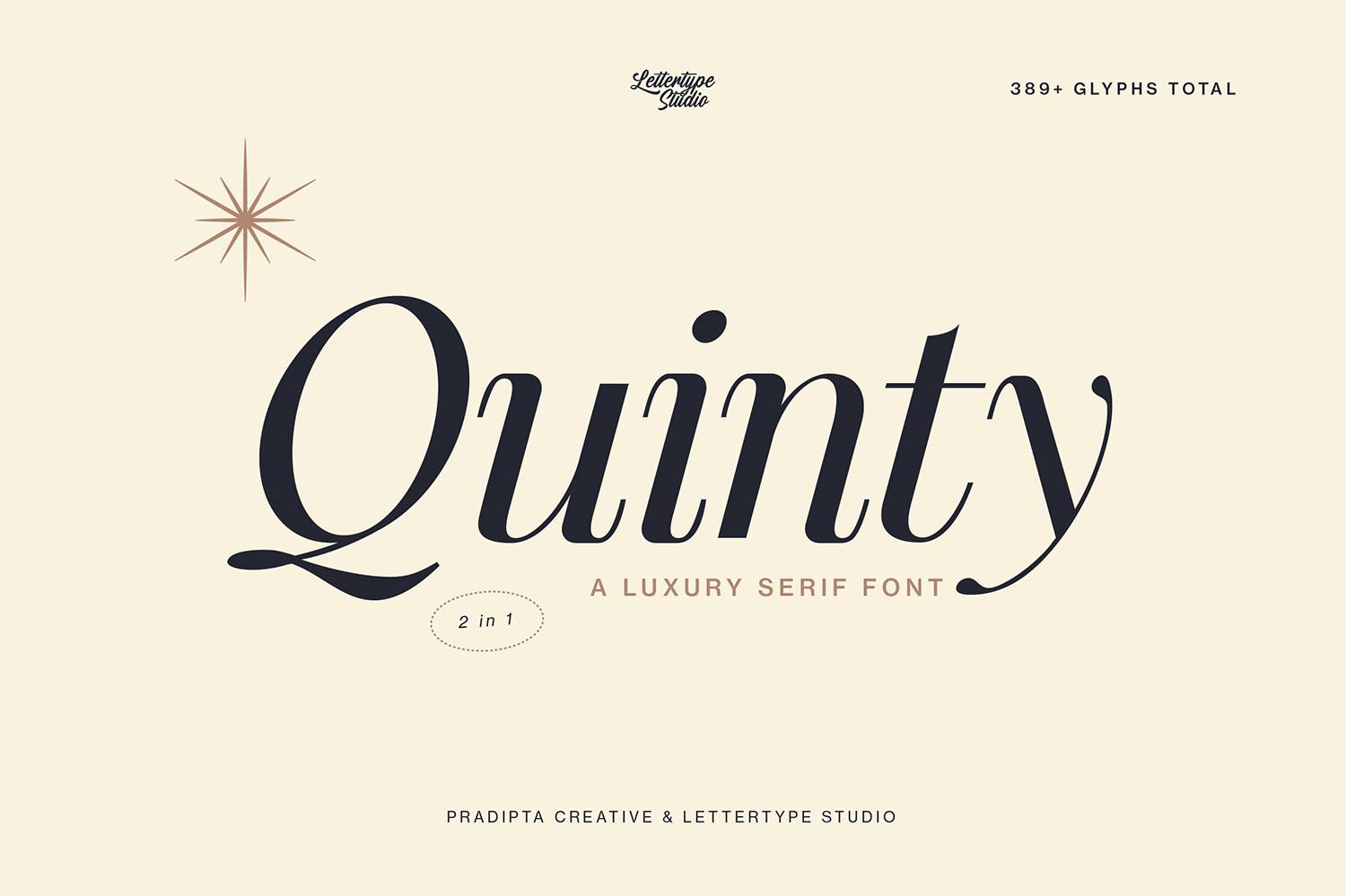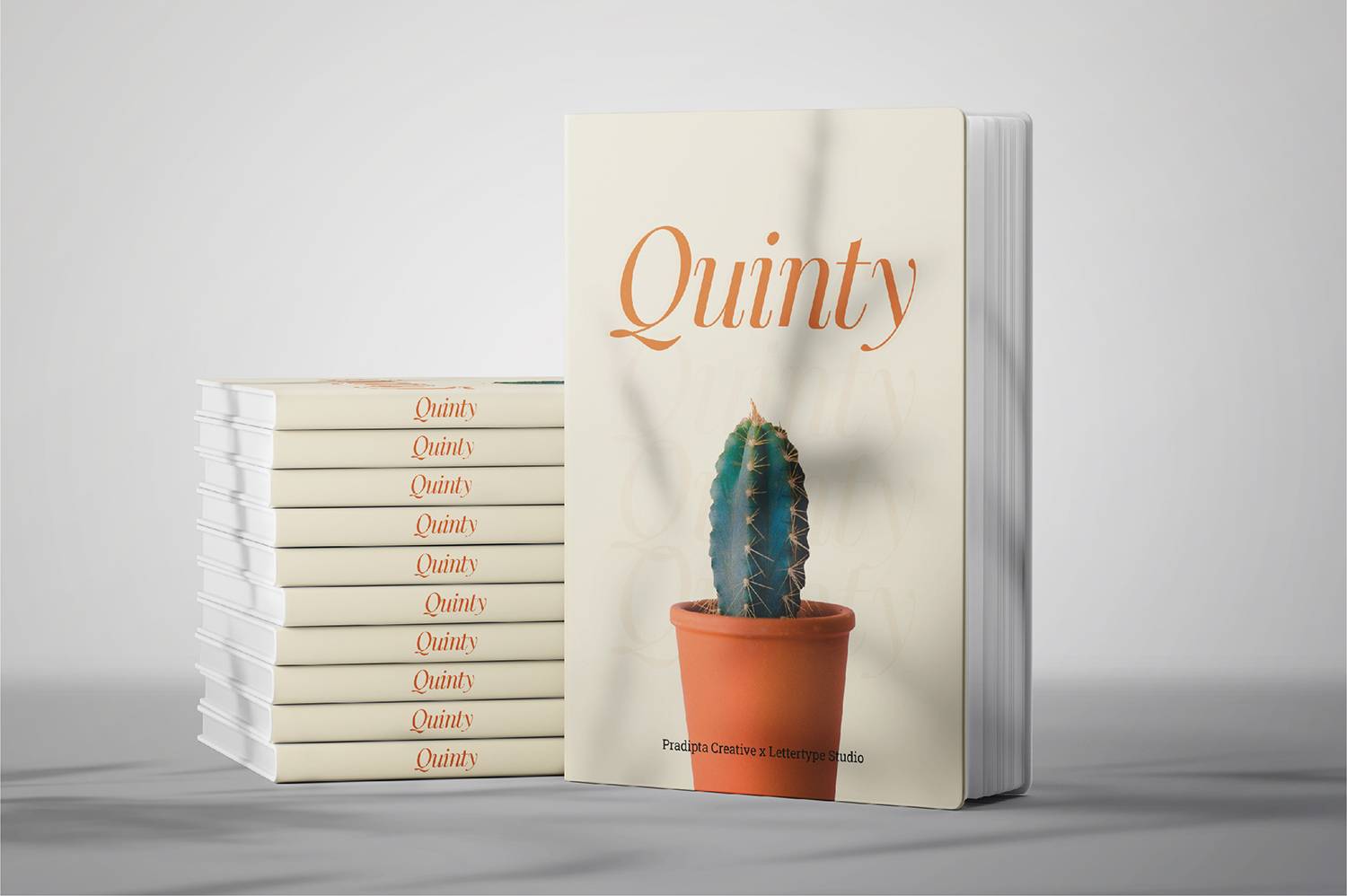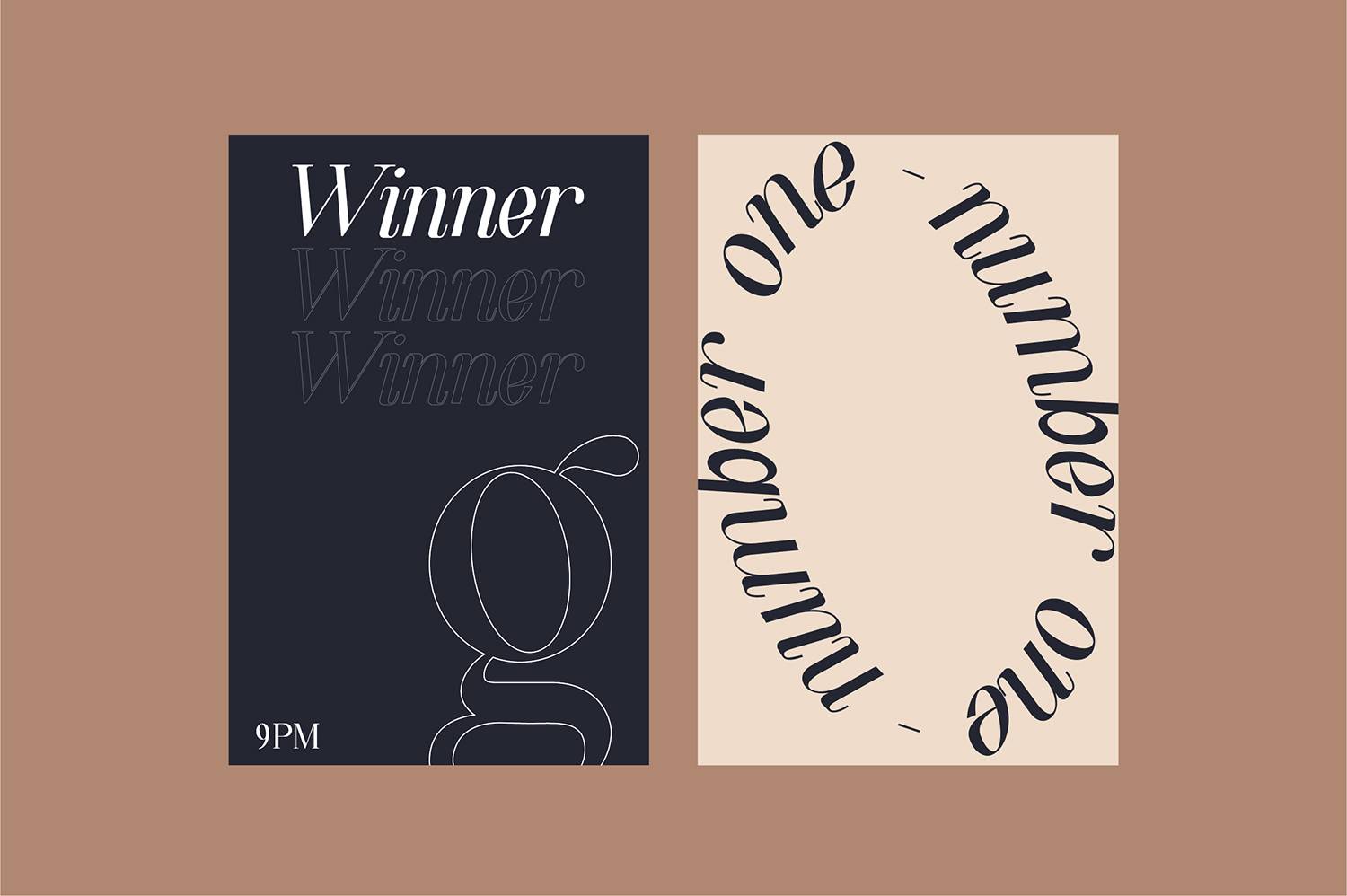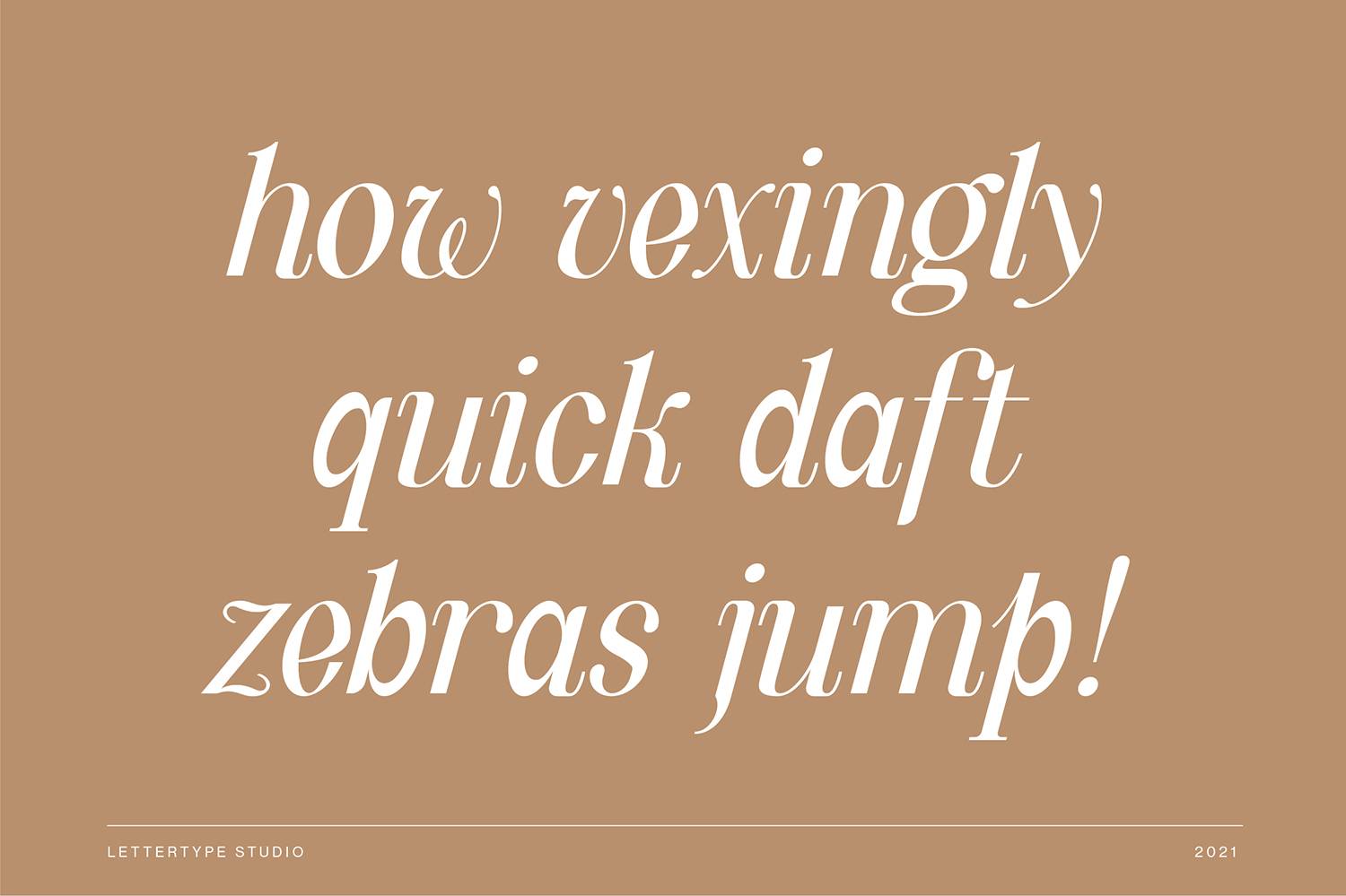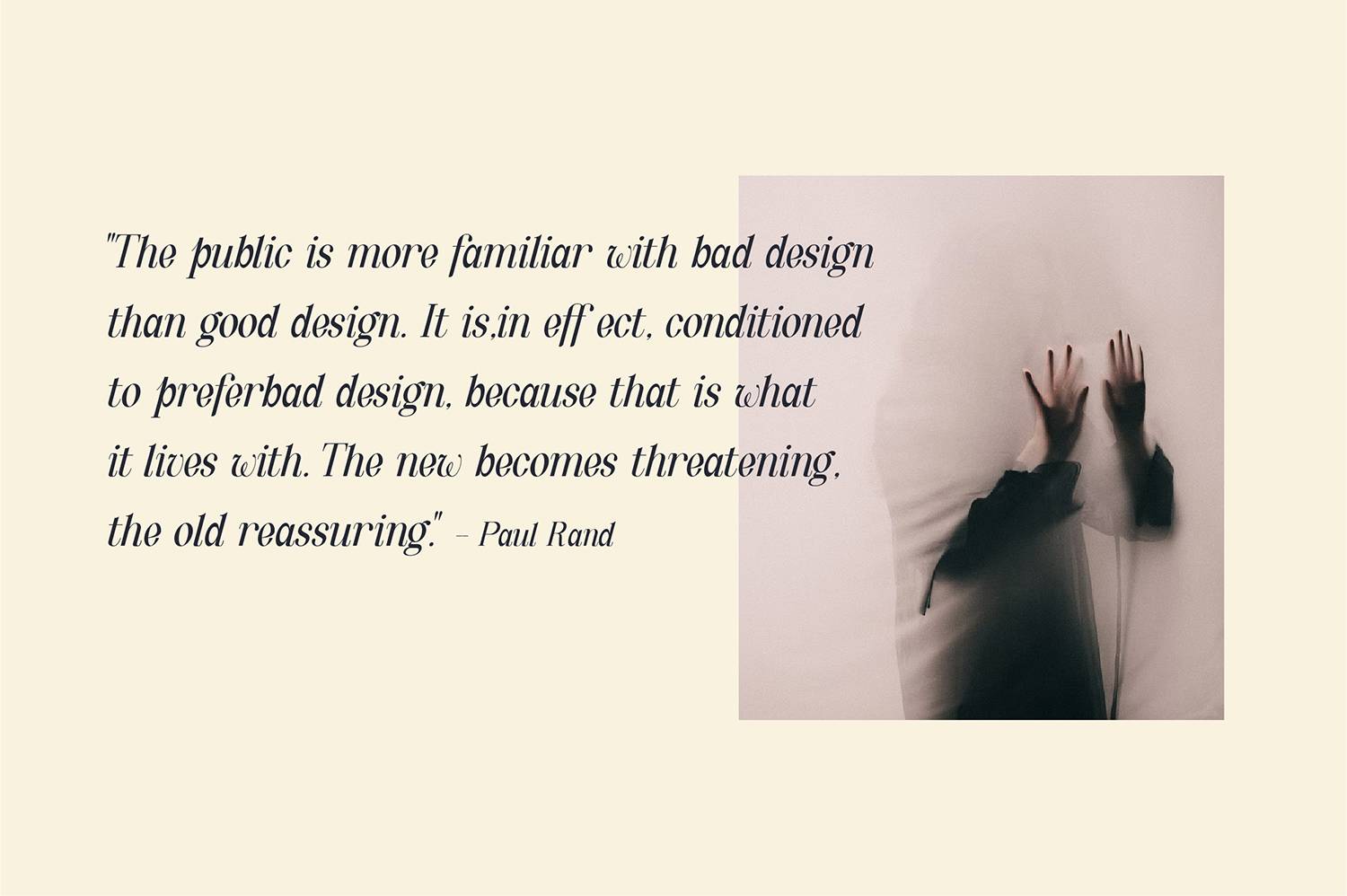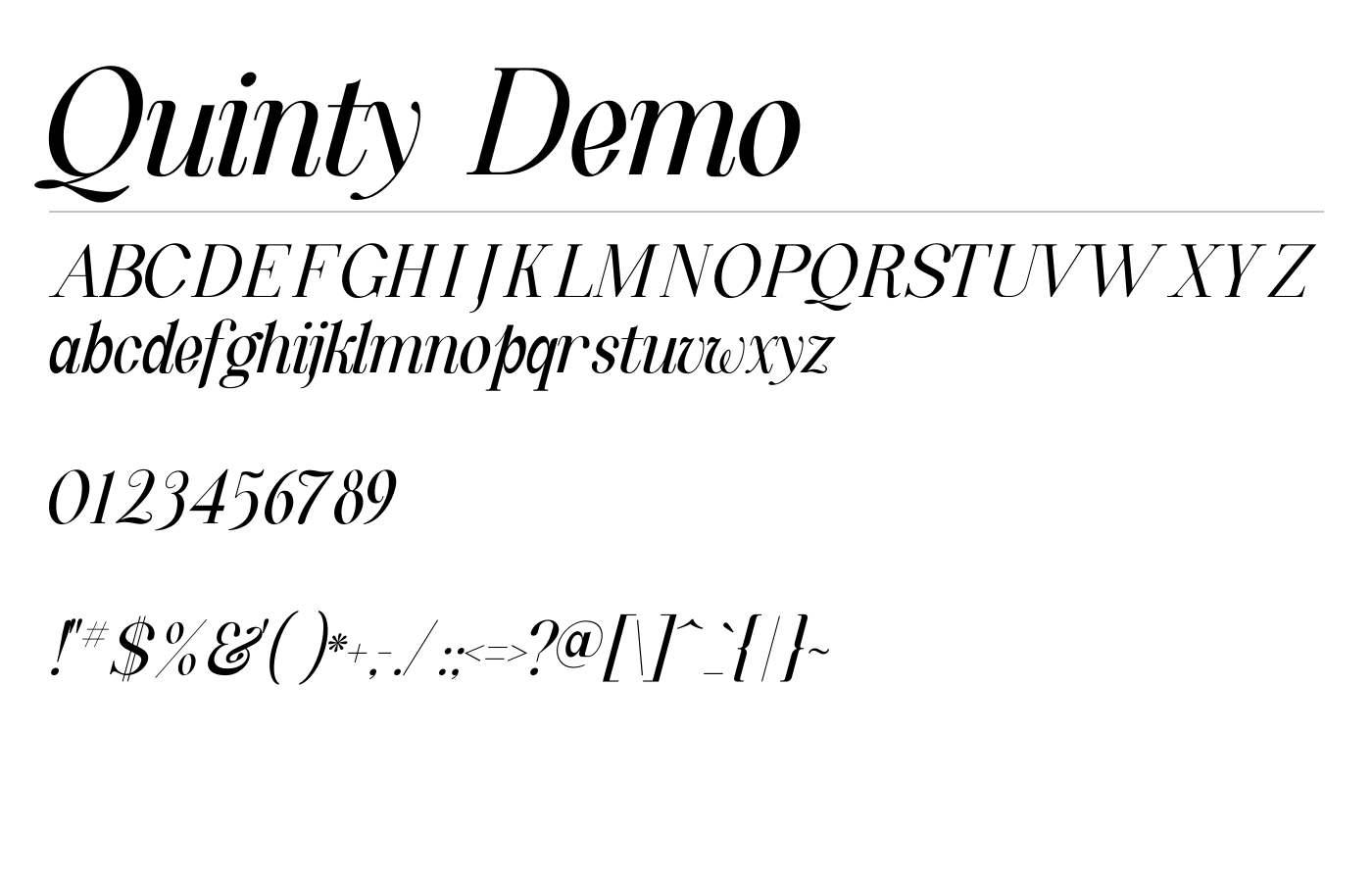
Quinty is an elegant serif font with a classic, high-contrast stroke style that combines thin, sharp serifs and refined curves, creating a sophisticated and timeless look. Its delicate italics and graceful letterforms make it ideal for luxury branding, editorial design, and upscale invitations where a touch of refinement and tradition is desired. This font works beautifully in headlines and logos, lending a sense of prestige and style without sacrificing readability.
Quinty Font
About Quinty Font
| Font family | Quinty Font |
| Release date | 2022-01-01 |
| Designer | Diki Pradipta Tri Atmojo |